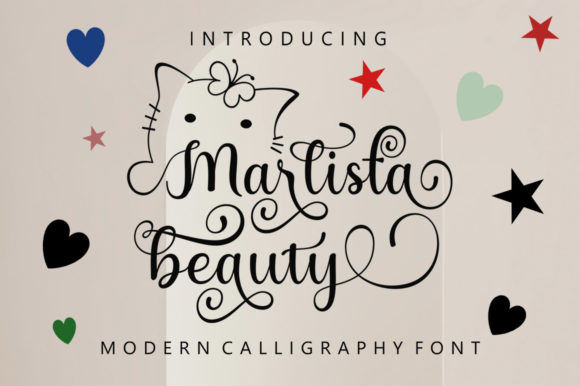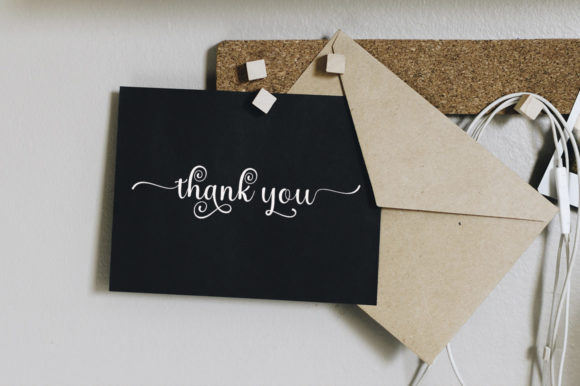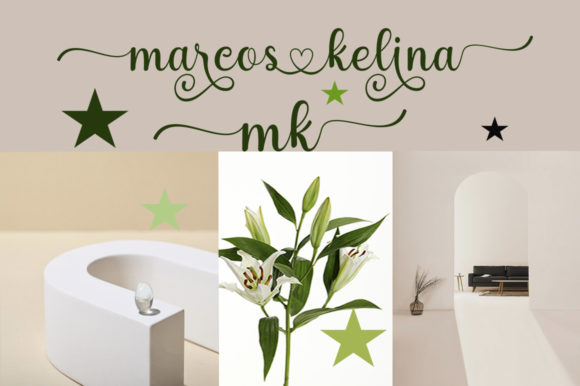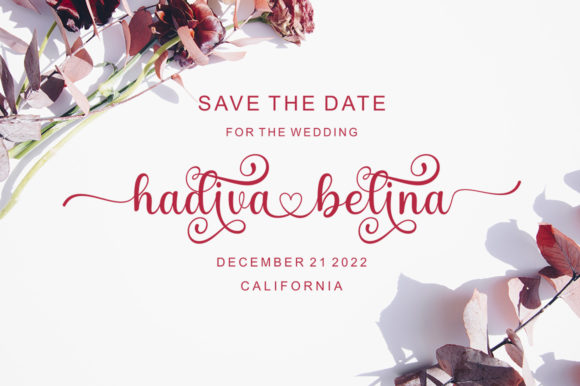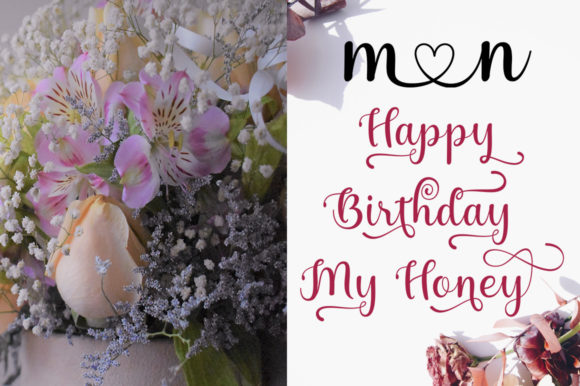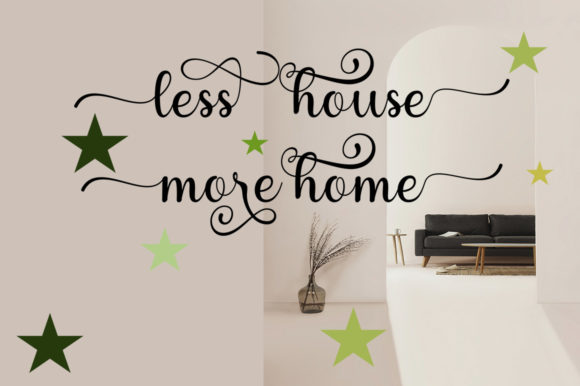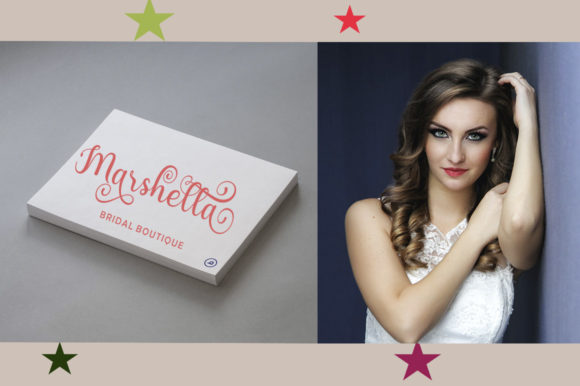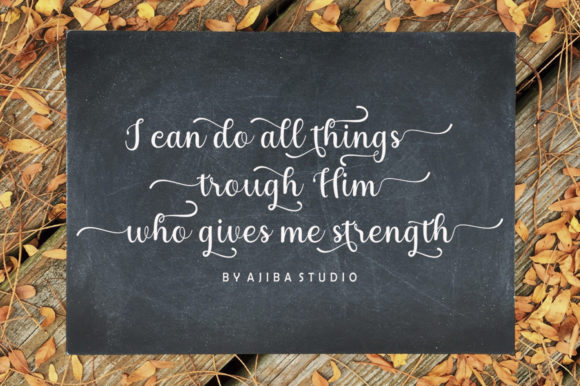
Marlista Beauty Font
About Marlista Beauty Font
Marlista Beauty stands out as a sleek and refined script font, adding a touch of sophistication and elegance to any design it graces. With its dazzling appeal, this font is particularly well-suited for a variety of creative projects, including but not limited to wedding invitations, thank-you cards, quotes, greeting cards, logos, and business cards. Its ability to infuse a customized touch makes it a versatile choice for those seeking a font that effortlessly elevates the visual appeal of their creations.
What sets Marlista Beauty apart is not just its sleek design but also its versatility in enhancing various design elements. The font’s refined script brings a sense of class to wedding invitations, making them all the more memorable. Similarly, it adds a personalized and polished touch to thank-you cards, quotes, and greeting cards, making each message stand out with style.
For logos and business cards, Marlista Beauty becomes an invaluable asset, leaving a lasting impression with its sophisticated aesthetic. The font’s PUA encoding further enhances its usability by allowing easy access to all glyphs and swashes. This feature empowers designers to explore and incorporate a range of decorative elements, ensuring that each design is truly unique and tailored to the creator’s vision.
Whether you’re a professional designer or someone working on a personal project, Marlista Beauty provides a seamless blend of style and functionality. Its sleek and refined nature allows it to adapt to various design needs, offering a customized touch that transforms ordinary designs into visually captivating works of art. Embrace the versatility of Marlista Beauty as you embark on your creative journey, confident that its elegant script will add a distinctive flair to every project it graces.